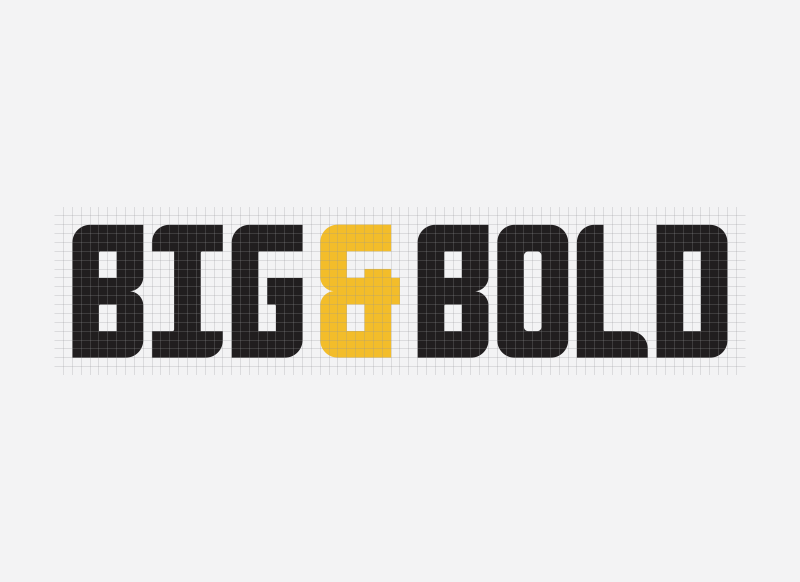
Anvyl
Anvyl Font
ANVYL is an all-caps font that combines sharp corners and soft curves, giving it an industrial feel while still being approachable and friendly.
Designed by Matt Cole Wilson and ​Dmitry Sivukhin. Includes Latin and Cyrillic characters, 0-9, and basic punctuation (213 total glyphs).